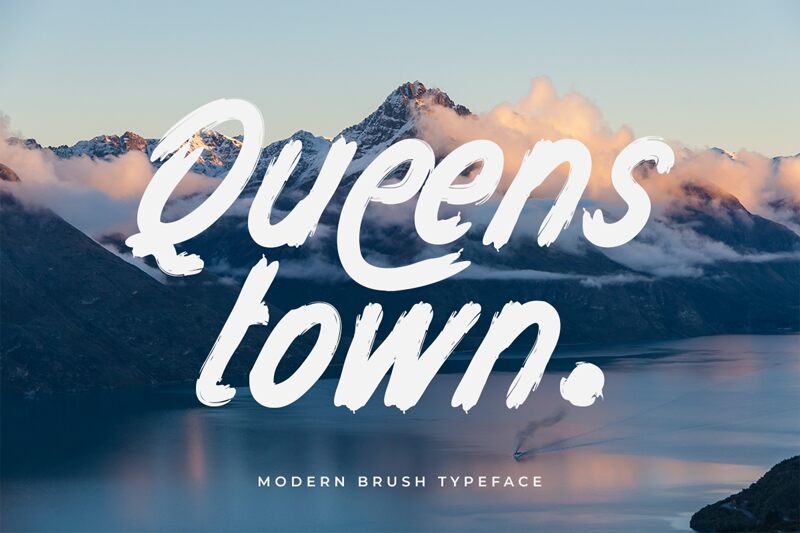
Queenstown
Queenstown font is a brush script typeface from Kong Font, and it stands out with its energetic flair. The condensed font impresses with its authentic handwritten look which is accomplished by expressive letter curvatures and its modern touch. Casual elegance radiates through every line of the overall text thanks to the font’s sophisticated slant.
Use Queenstown in an invitation card design, or even a personal commercial business card one. Headlines for magazines, children’s books, and newspapers all become funnier when you use this free handwritten font as described in coloring book cover designs as well! What are you waiting for? Explore Queenstown on your next project!